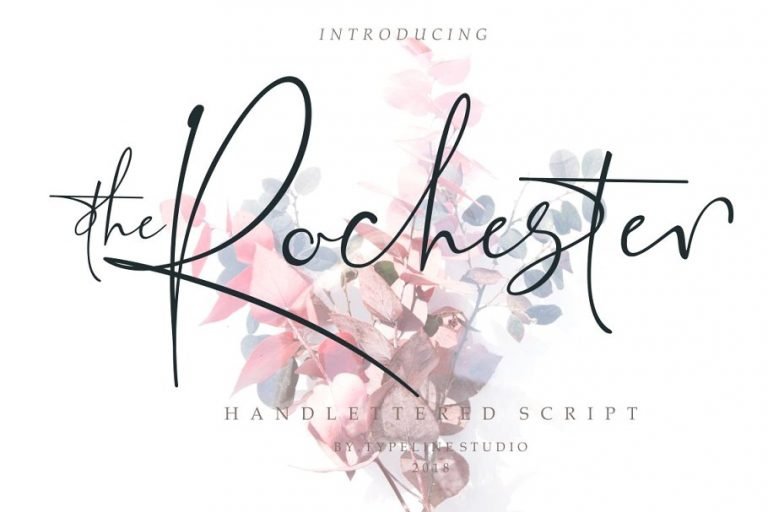
the Rochester Signature Font
the Rochester Signature Demo Font
Hello buddy! the Rochester Font– is a modern and clean signature script font, is a modern signature font with the current handwriting style. It is designed and shared by typeline studio. Rochester city is inspired this signature font. I have long thought about how I should make a beautiful font signature for writing a word or sentence. As a graphic designer, the rochester signature font is made with a modern taste but with real hand-lettering nuances. So, this font is the embodiment of this idea. This is perfect for LOGO BRANDING